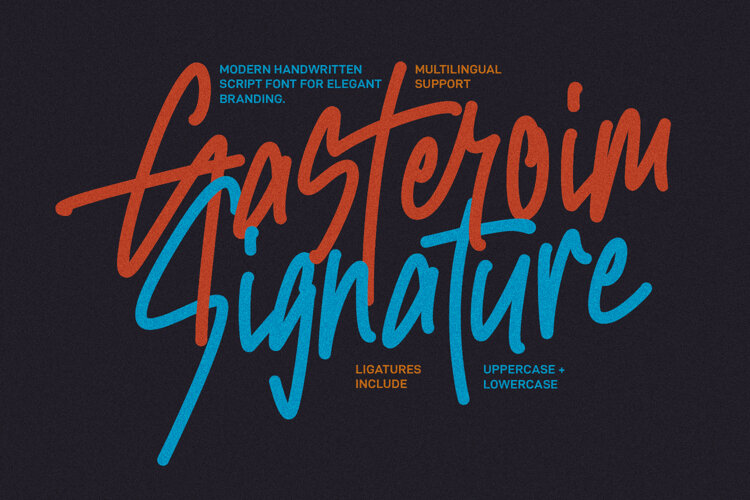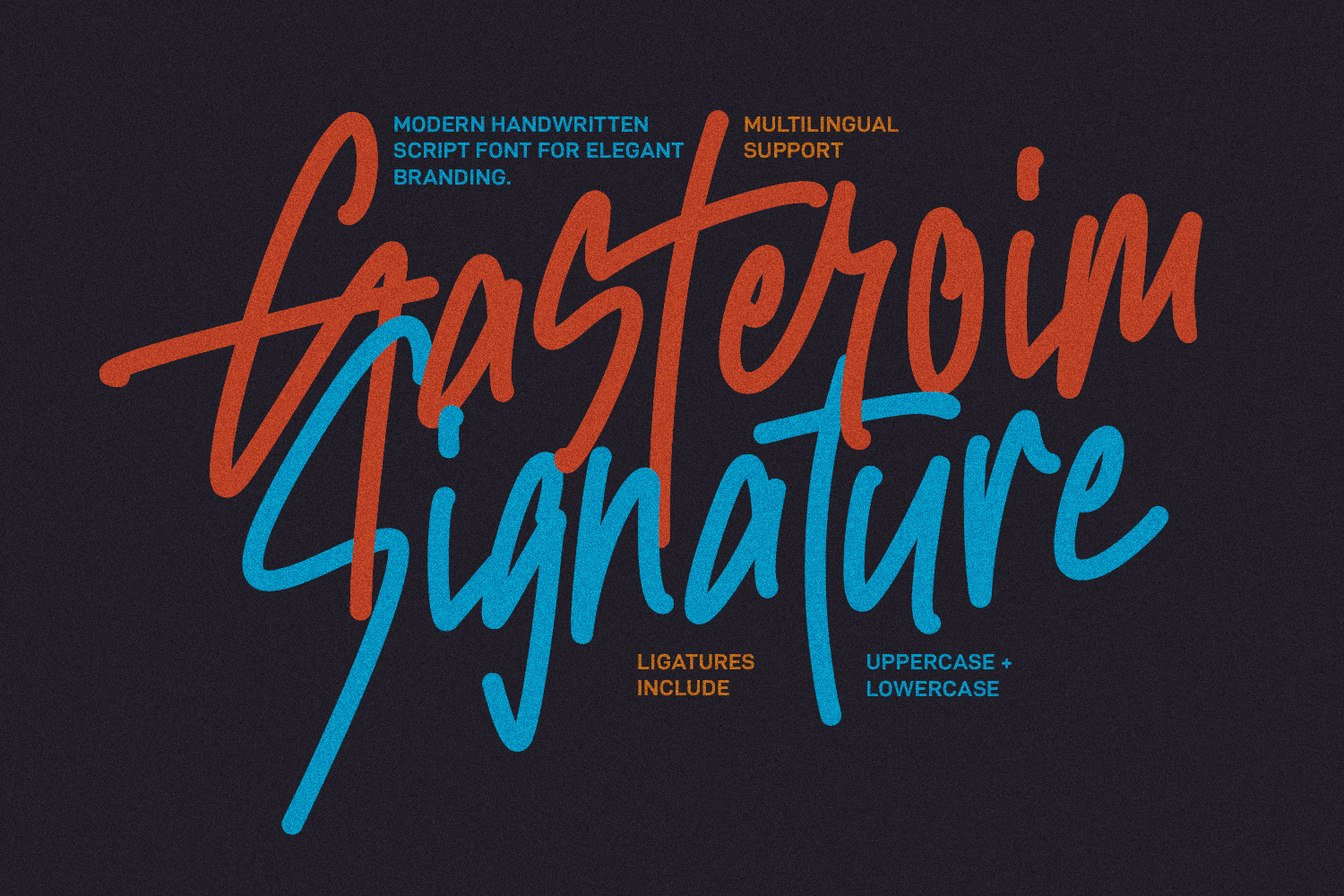
Gasteroim Signature Font Branding
Gasteroim Signature is a modern handwritten script font designed to bring an authentic, expressive touch to creative projects. Featuring a dynamic stroke rhythm and natural flow, this typeface captures the effortless character of custom penmanship. It includes full uppercase and lowercase sets, standard numbers, punctuation marks, ligatures, and comprehensive multilingual support.
Crafted for versatility, Gasteroim Signature elevates visual identity work, logo design, product packaging, and editorial layouts. The smooth, confident letterforms make it an ideal choice for social media graphics, quote compositions, signature logos, and contemporary brand collateral seeking a distinct, modern signature feel.